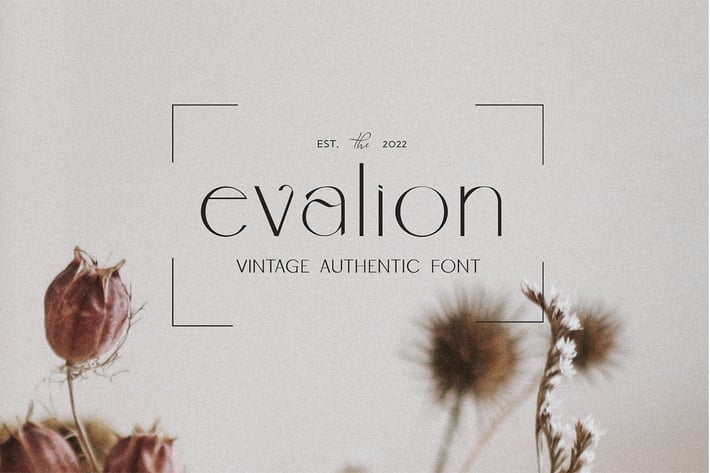
Evalion - Vintage Font
Introducing Evalion, an elegant, classic, and beauty sans serif font. Its unique and lovely feel.
+ Uppercase
+ Lowercase
+ Numerals